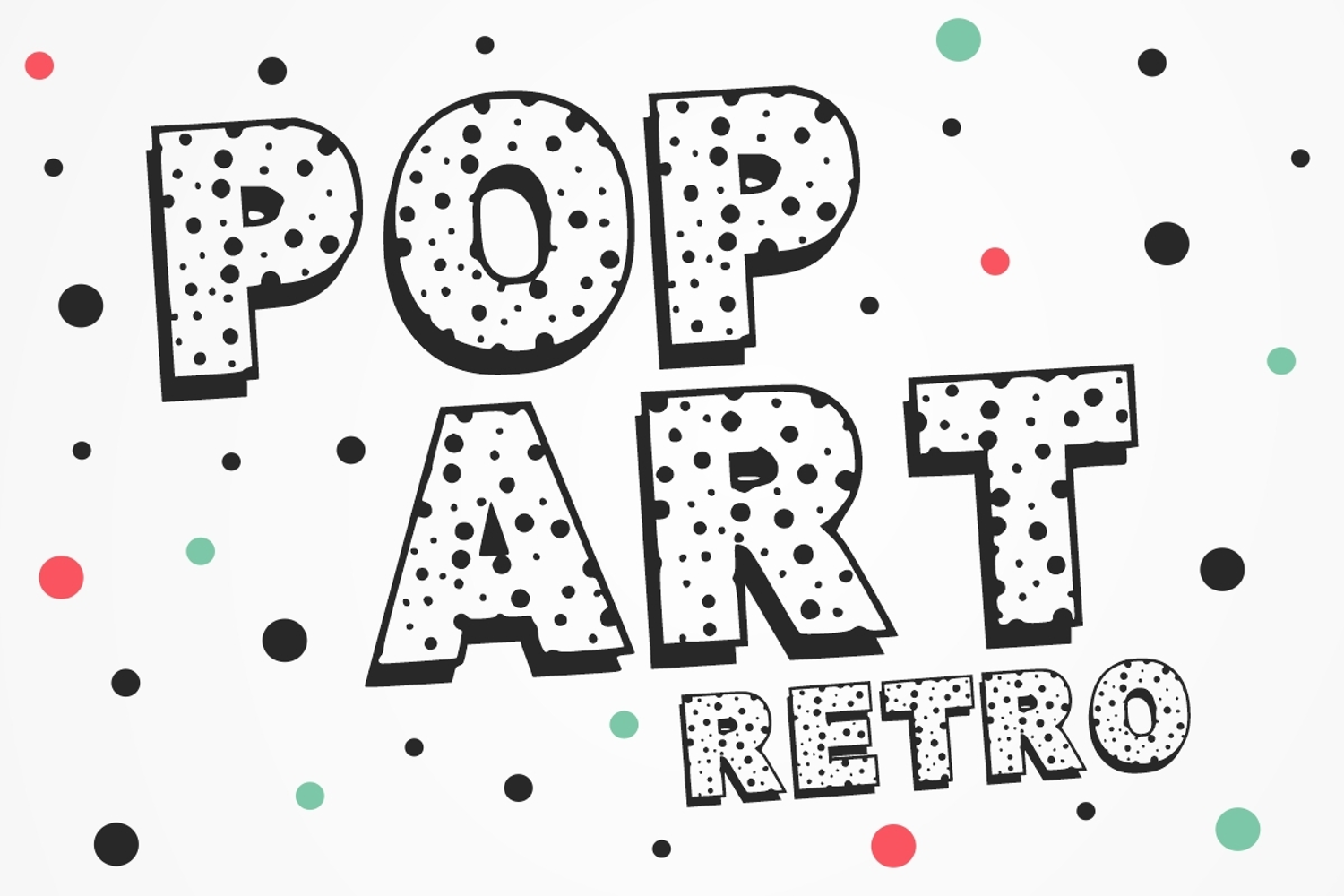
Pop Art Retro
Pop Art Retro Font is a bold and playful display typeface inspired by the vibrant energy of pop art and comic-style design. Featuring chunky letterforms filled with dotted patterns and paired with strong outlines, it captures the nostalgic charm of retro poster art and 1960s–70s pop culture.
This font is perfect for eye-catching titles, posters, social media graphics, merchandise, packaging, and any project that needs a fun, quirky, and vintage twist. With its dynamic personality and bold aesthetic, Pop Art Retro Font adds a burst of excitement to both digital and print designs.